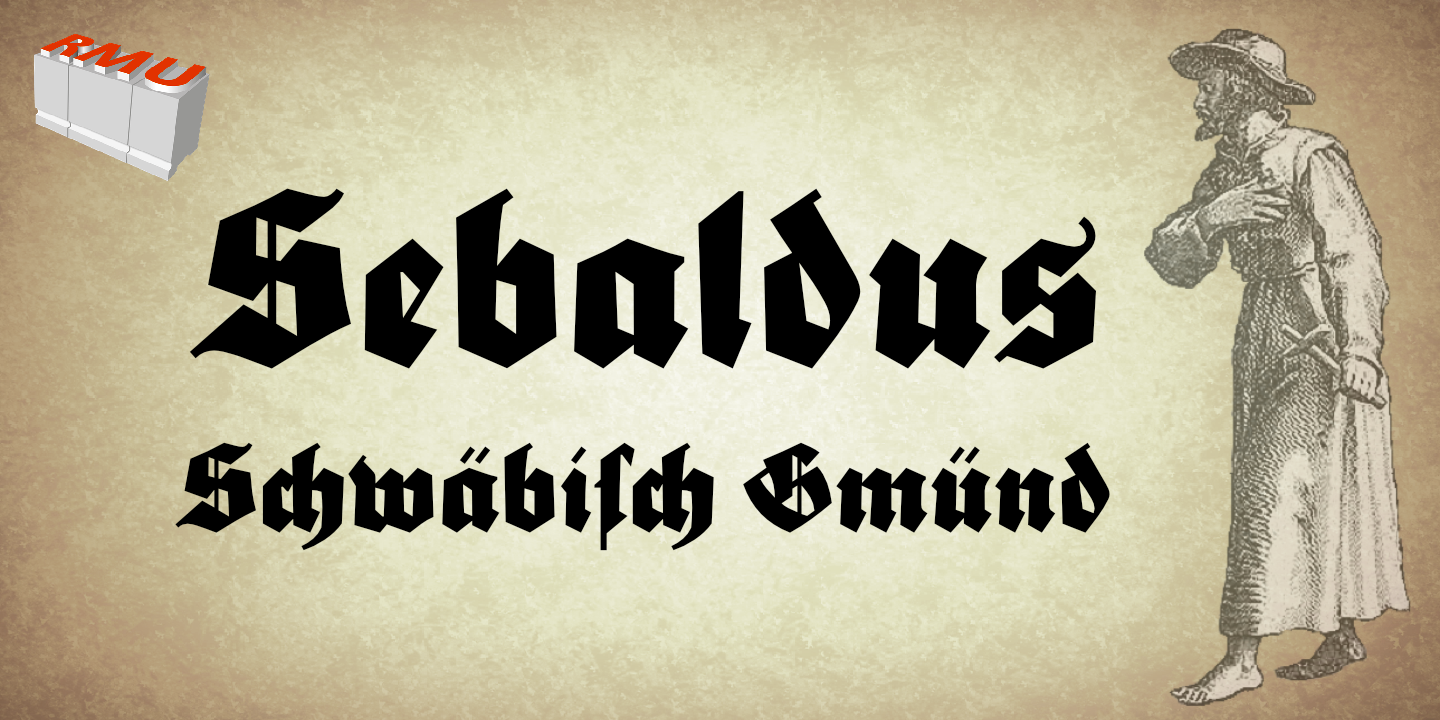
Sebaldus Font is perfect for medieval manuscript designs, historical document recreations, traditional ecclesiastical branding, ancient monastery signage, classical academic institutions, heritage book publishing, religious ceremonial materials, and scholarly designs that require authentic medieval script and ecclesiastical dignity.
This font is exciting because it preserves the sacred tradition of medieval calligraphy through its meticulously crafted letterforms that echo the devotional artistry of ancient scribes and monastic manuscripts. The reverent character design embodies centuries of scholarly tradition and spiritual dedication, making it perfect for projects that honor historical heritage and academic excellence.
Sebaldus Font belongs to the medieval manuscript font family, featuring ecclesiastical styling and scholarly elements that enhance its authenticity for academic and religious-focused design applications.
Whether you're creating academic institution branding or historical manuscript graphics, Sebaldus Font Free Download delivers profound scholarly authority and medieval authenticity. This typeface represents the perfect preservation of ancient calligraphic traditions while maintaining functionality for contemporary applications. The font's dignified presence works magnificently in academic communications, religious materials, and historical publications, providing exceptional readability while maintaining its manuscript character that transforms any design with scholarly gravitas and creates memorable educational experiences across all media platforms and academic communications.